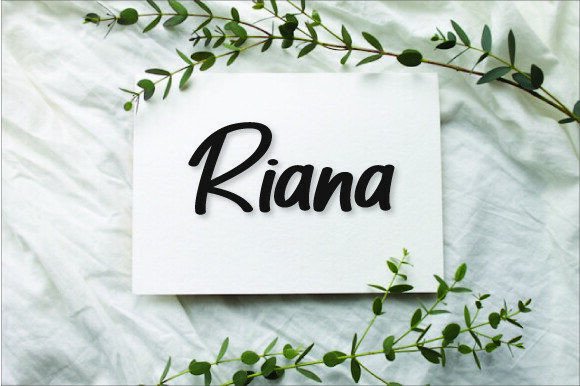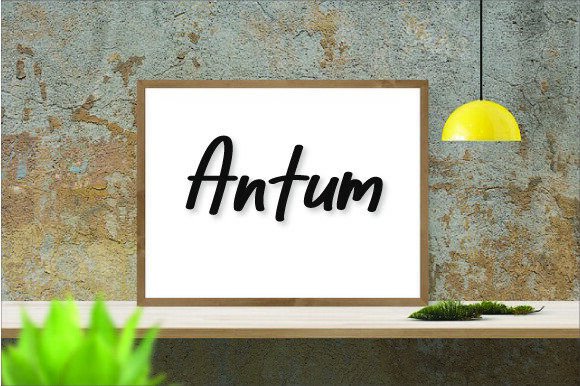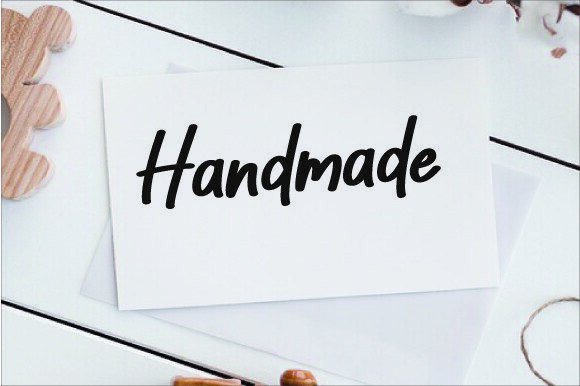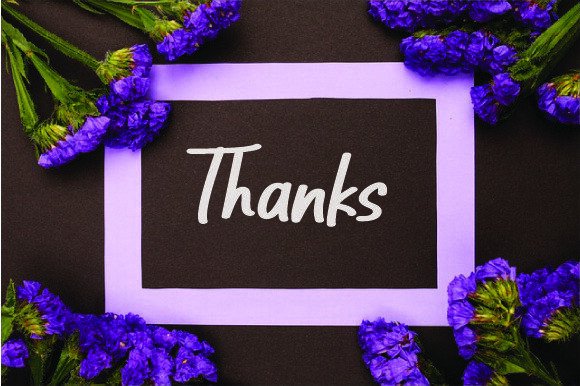
Introduction to Meredian Font Font
Fonts play a crucial role in design, and the Meredian Font font is a typeface that brings both character and versatility to any project. Whether you’re working on a branding project, a website, or a print design, the Meredian Font font offers a unique style that can elevate your work.
Meredian is a trendy handwritten font with a contemporary atmosphere and impeccable form, inspired by timeless classic calligraphy.
It will add elegance and class to any of your design projects .
The Meredian Font font is more than just a typeface – it’s a design tool that helps you communicate your message with style and clarity. Its unique character set and versatile design make it suitable for a wide range of applications, from elegant invitations to bold headlines.
With its carefully crafted letterforms and balanced proportions, the Meredian Font font ensures readability and visual appeal across all mediums.
The Meredian Font font stands out with its unique design, exceptional readability, and versatility across various design applications.